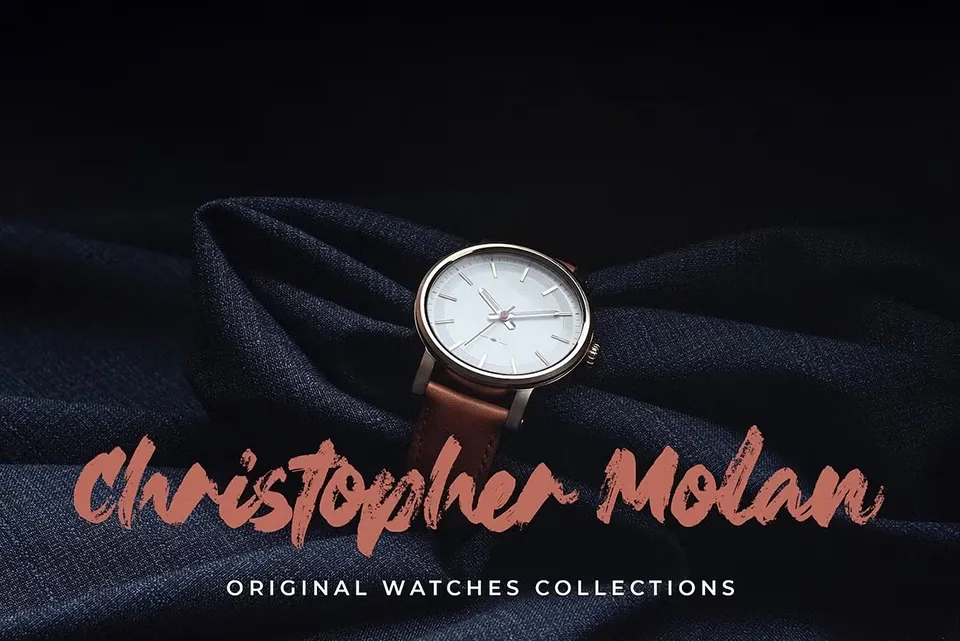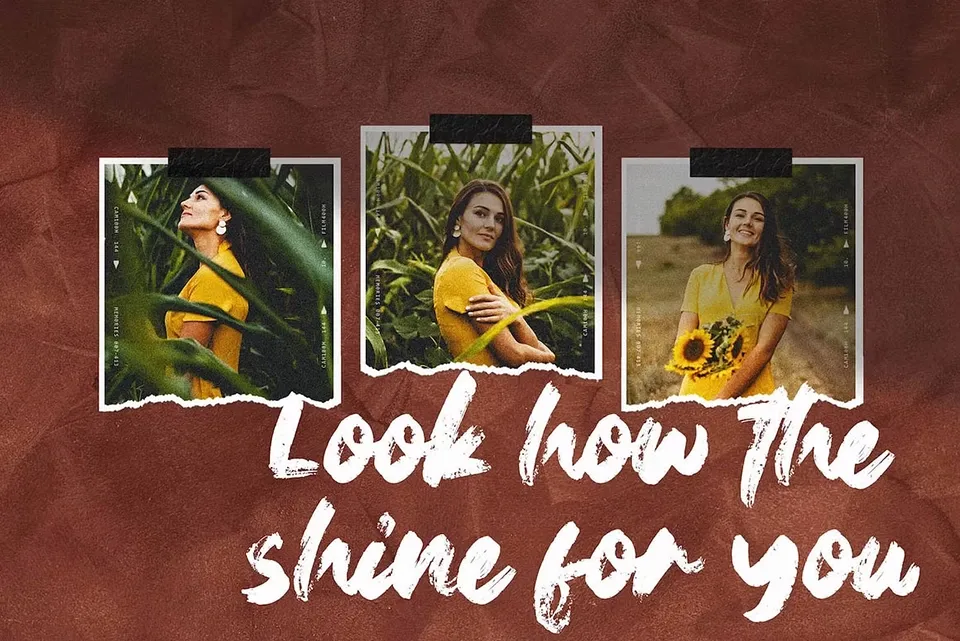
Janji Dilan Font
Janji Dilan Font is a captivating textured brush typeface that authentically captures the essence of hand-painted lettering. Its bold strokes and visible texture lend an expressive and artistic quality, perfect for designs seeking a personal, handcrafted touch. This font shines in applications like branding, social media graphics, evocative quotes, posters, and packaging designs. Janji Dilan offers a dynamic yet slightly rugged elegance, ensuring text stands out with distinct personality. Ideal for projects requiring an organic and expressive aesthetic, it adds significant character and warmth to any creative work.